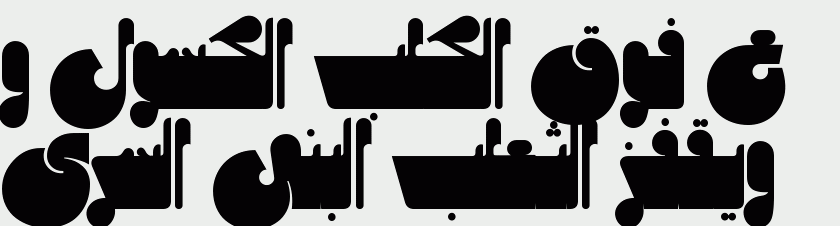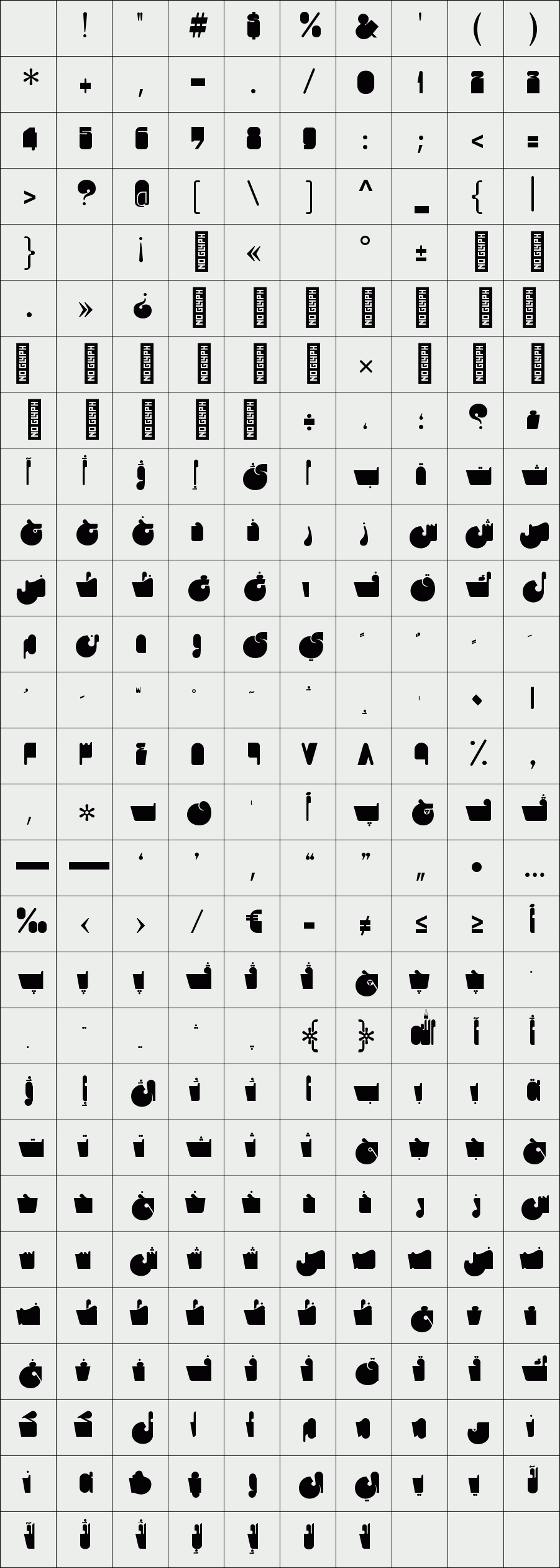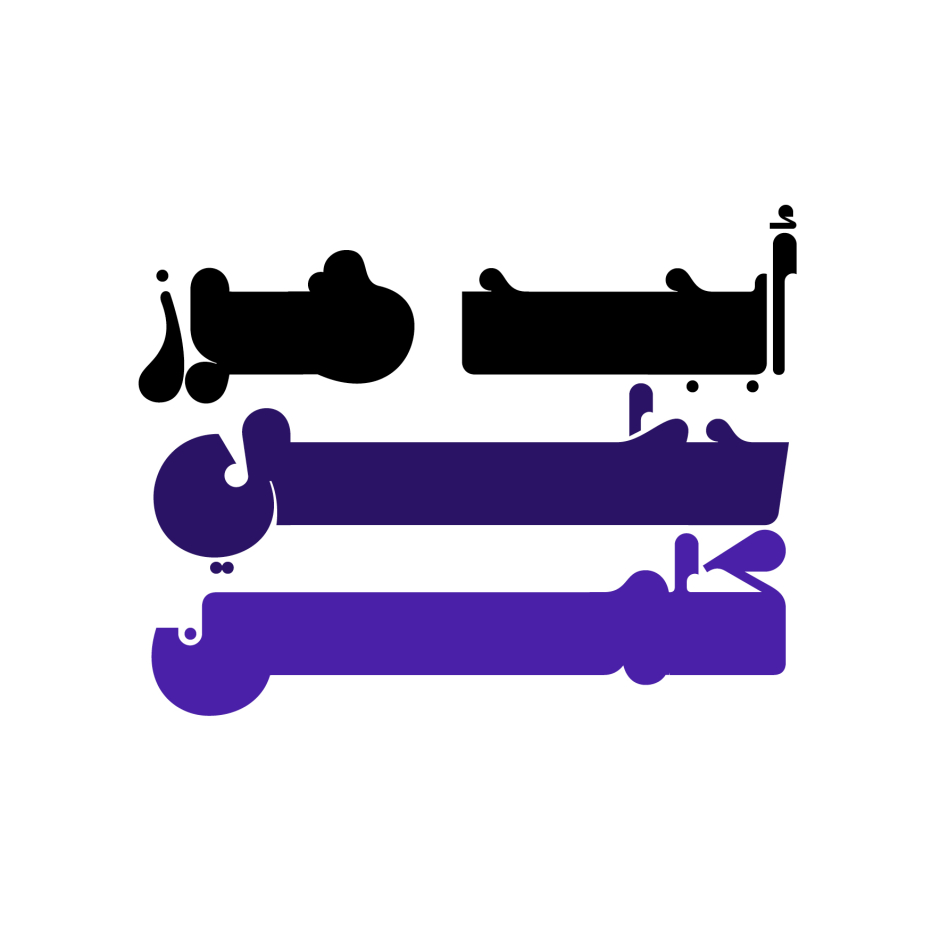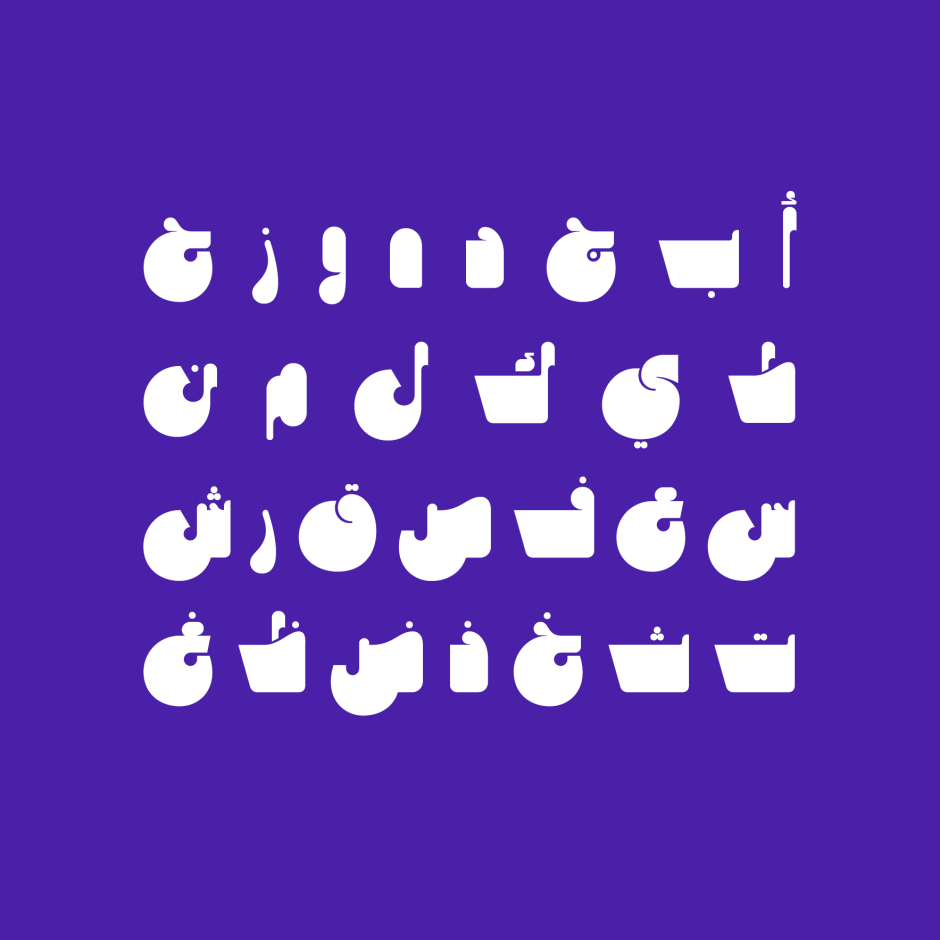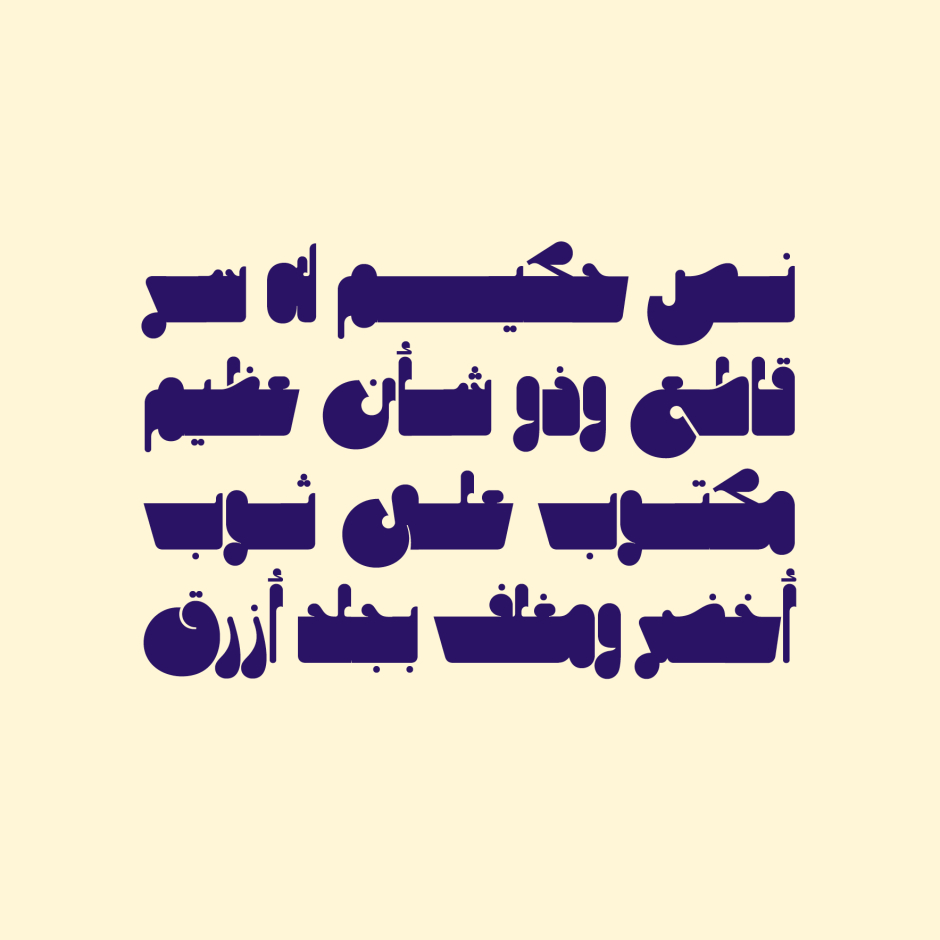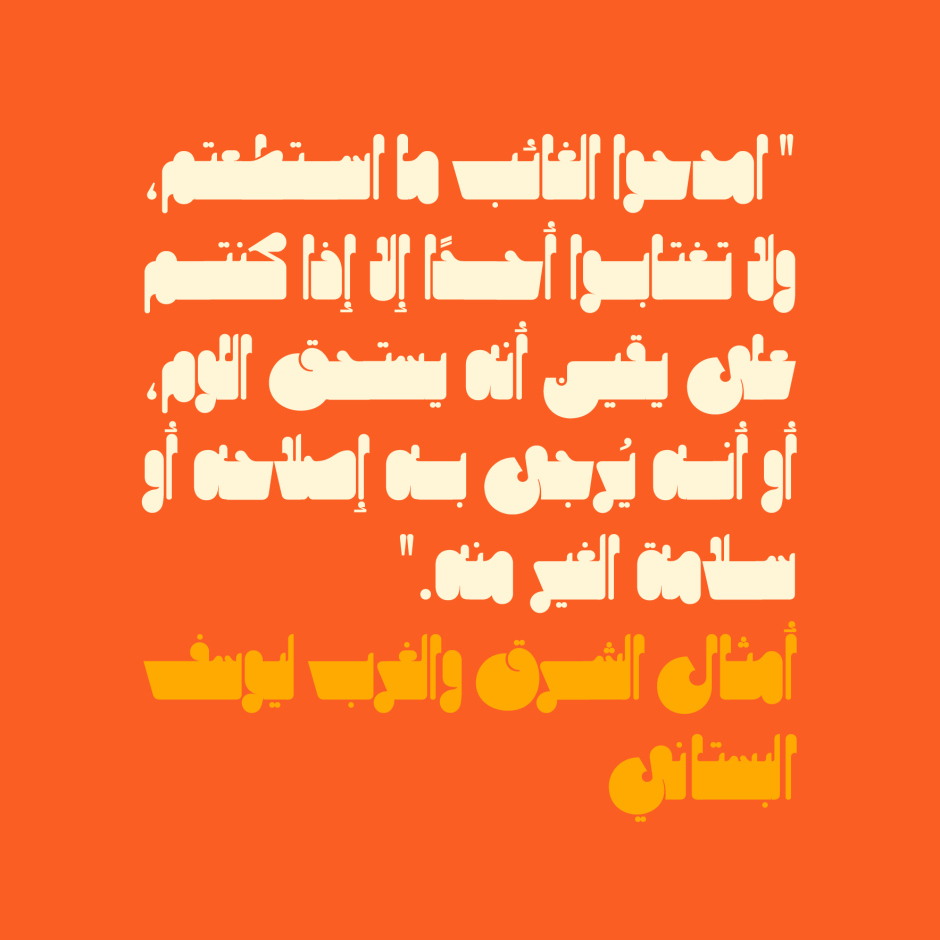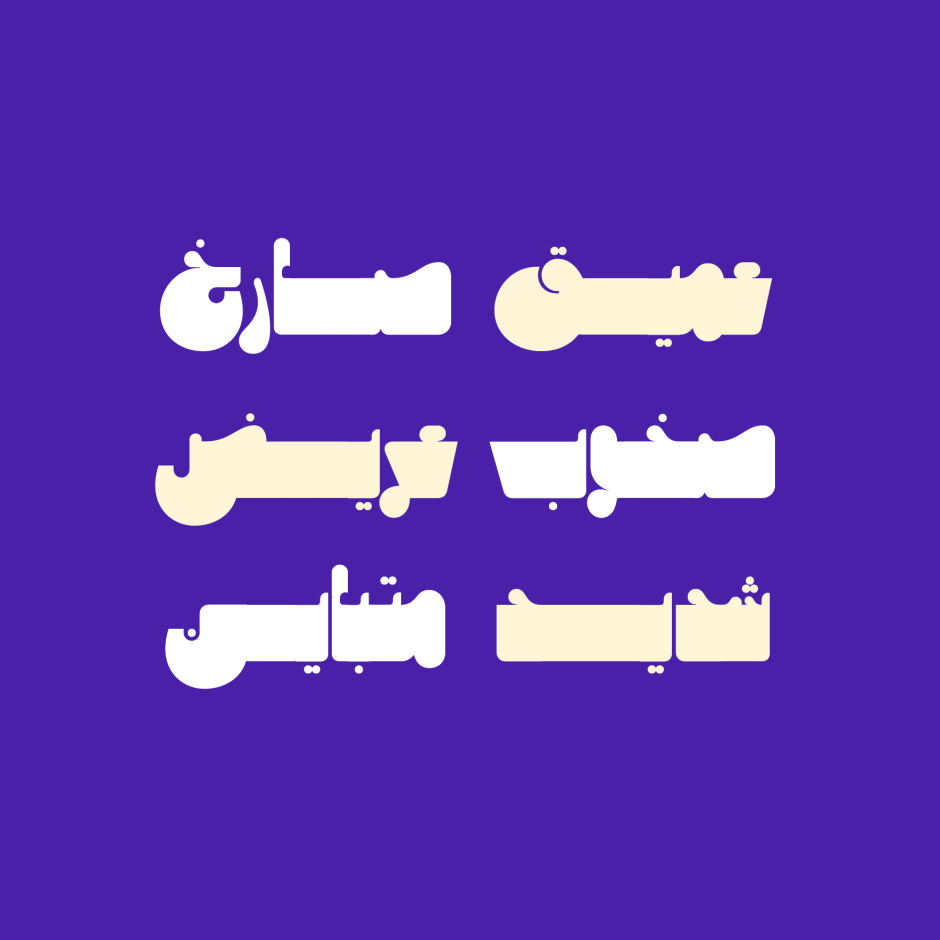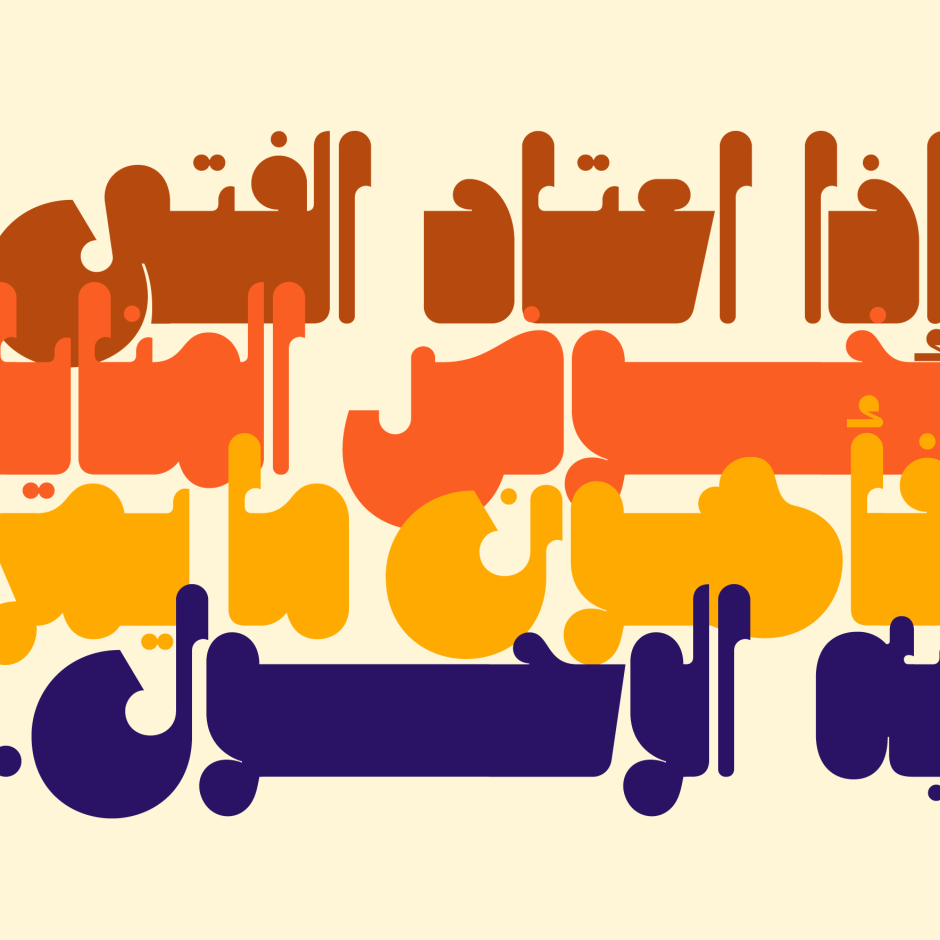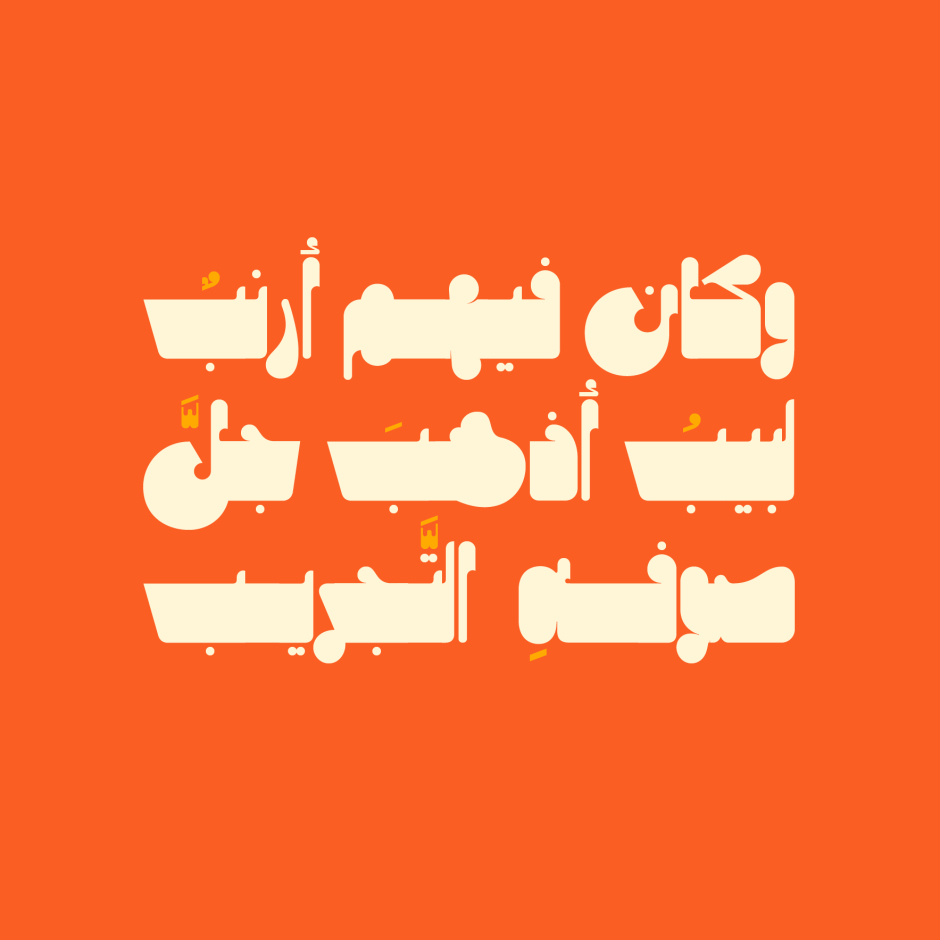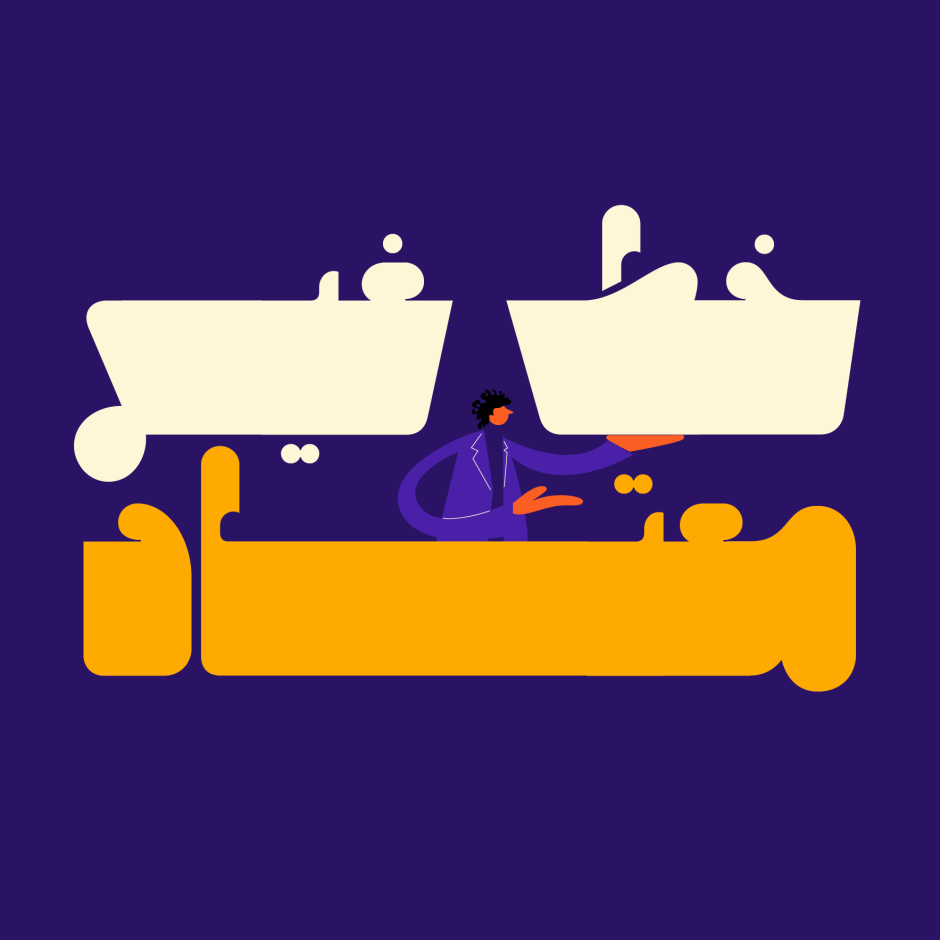
Mithqal
Mithqal is an Arabic display font featuring an exceptionally heavy letterform structure. The design draws inspiration from both the Neo-Islamic and Neo-Surrealist art movements. Designed for logotypes, branding, and creative titling, Mithqal supports both Windows and macOS.